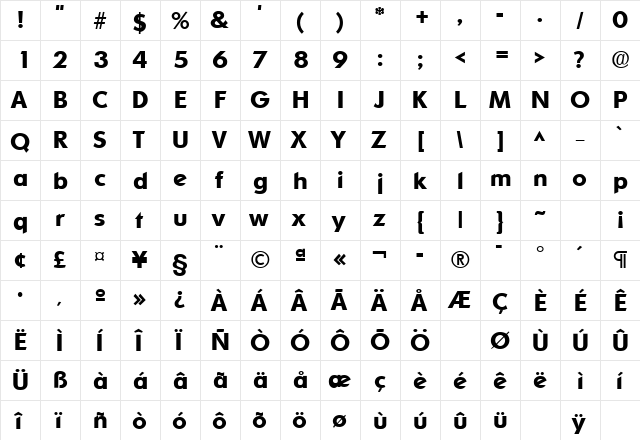
Ornitons Bold Font Preview
Ornitons Bold
Ornitons Bold Font Details
Design Context for Ornitons Typeface
Ornitons is a composed and adaptable typeface that performs quietly and consistently across a wide range of design contexts. The heavy weight commands attention and anchors typographic hierarchies.